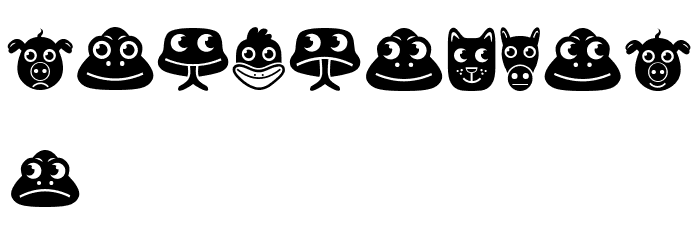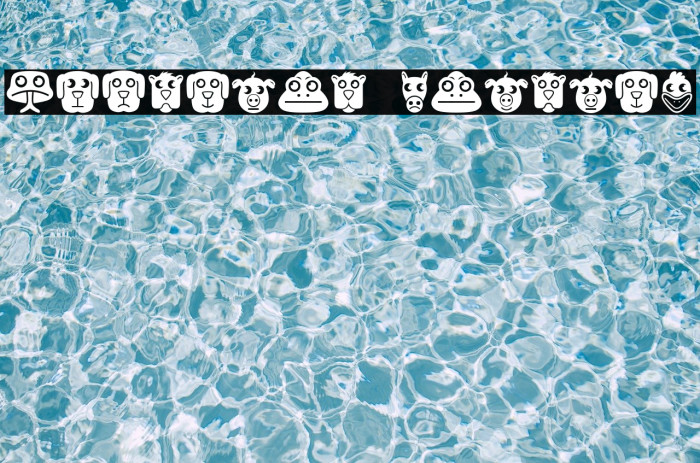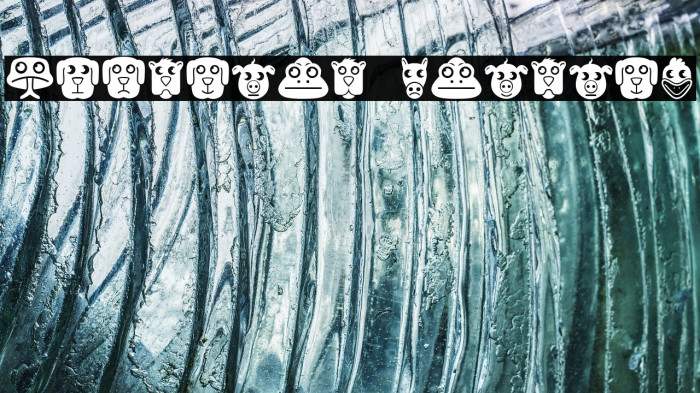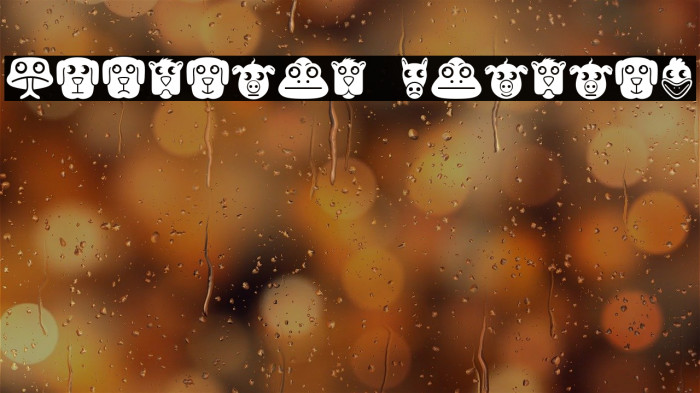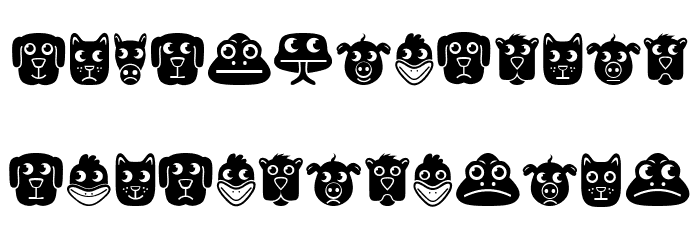
Animales Regular Font
This font is a playful and whimsical collection of animal faces, each character representing a different animal with exaggerated and cartoonish features. The designs are bold and filled with personality, making them ideal for projects that require a fun and engaging visual element. The characters are consistent in style, with thick outlines and solid fills, ensuring they stand out clearly. The font is not meant for traditional text but rather for decorative purposes, adding a unique touch to creative projects. Its charm lies in its ability to convey emotion and character through simple yet effective design elements.
A playful font featuring cartoonish animal faces with bold outlines.
• Proposed Projects: Ideal for children's books, educational materials, playful branding, and creative posters.
• Category: Decorative/Display
• Contrast: Low
• Overall Style: Playful, Cartoonish, Decorative
• Use Case: Decorative elements, Branding, Posters